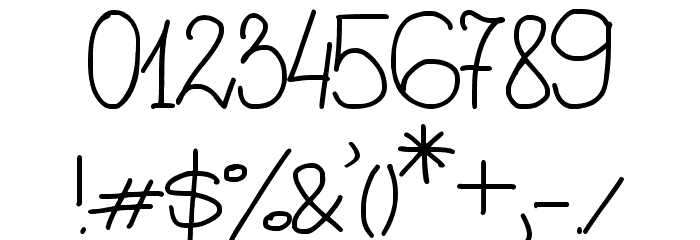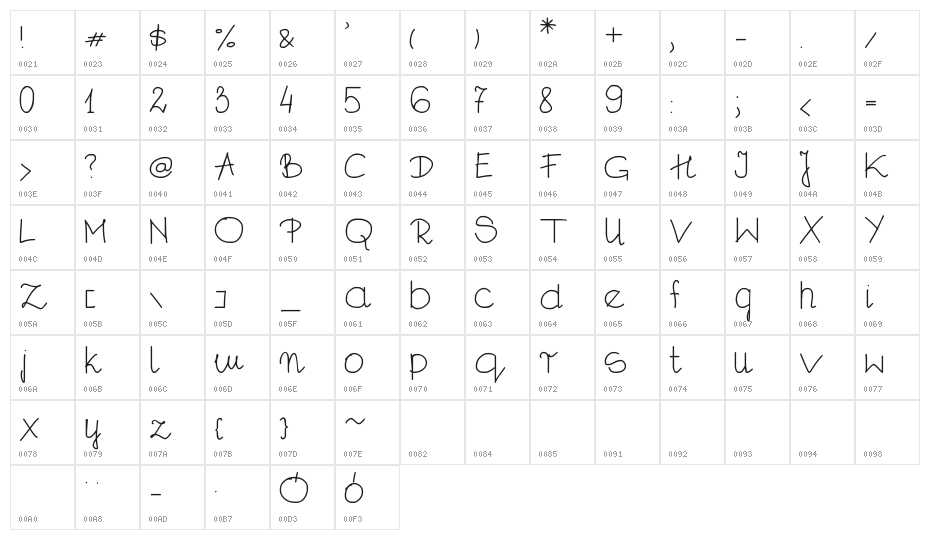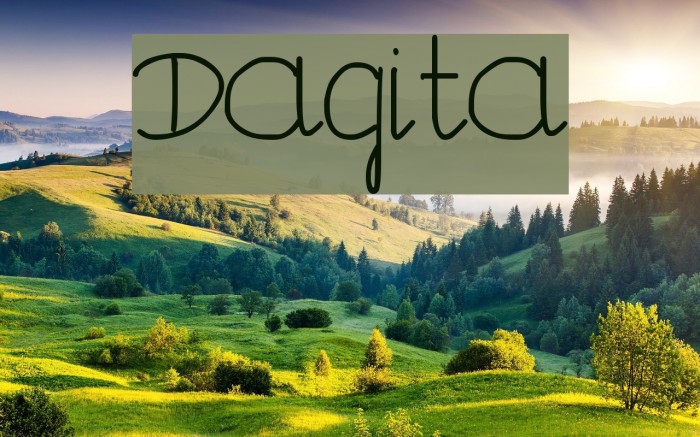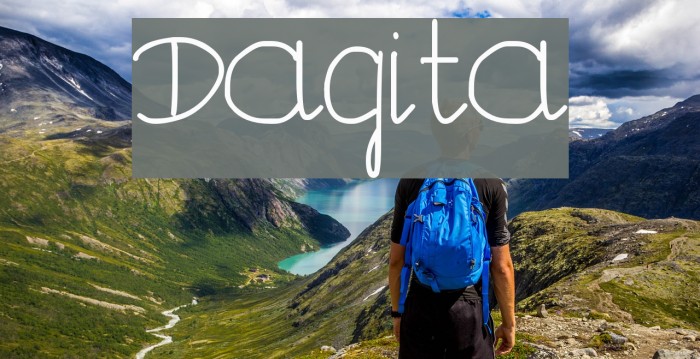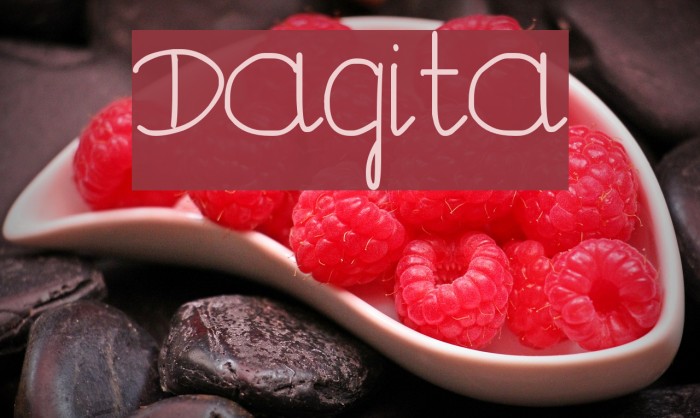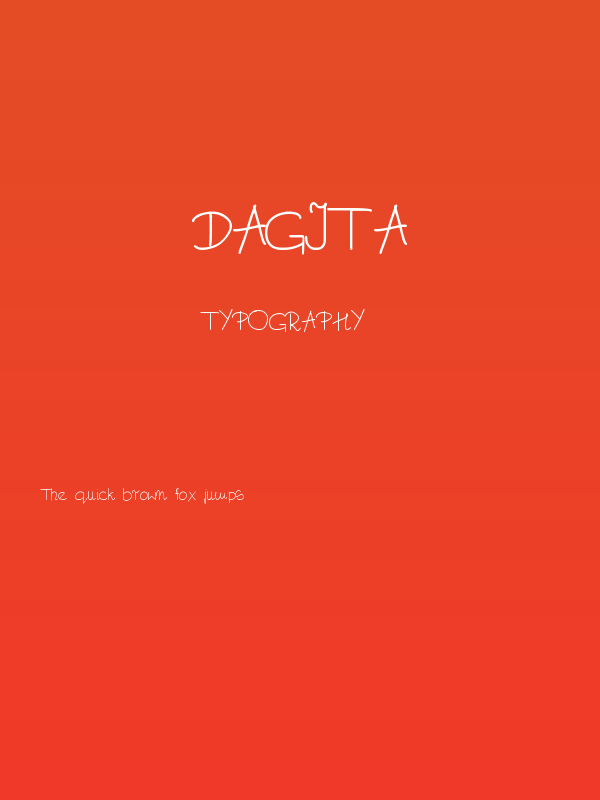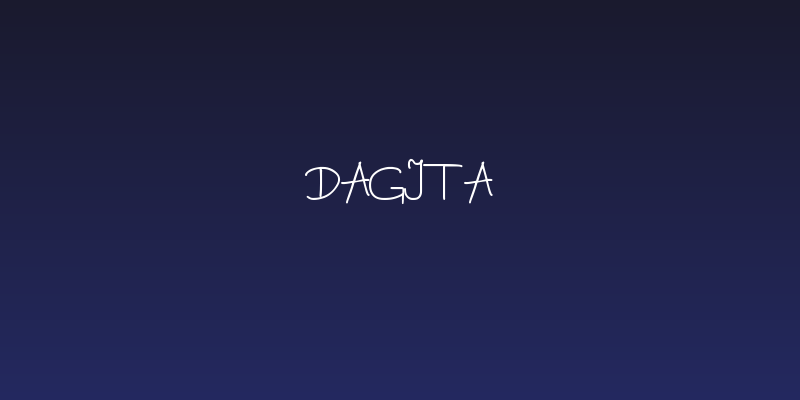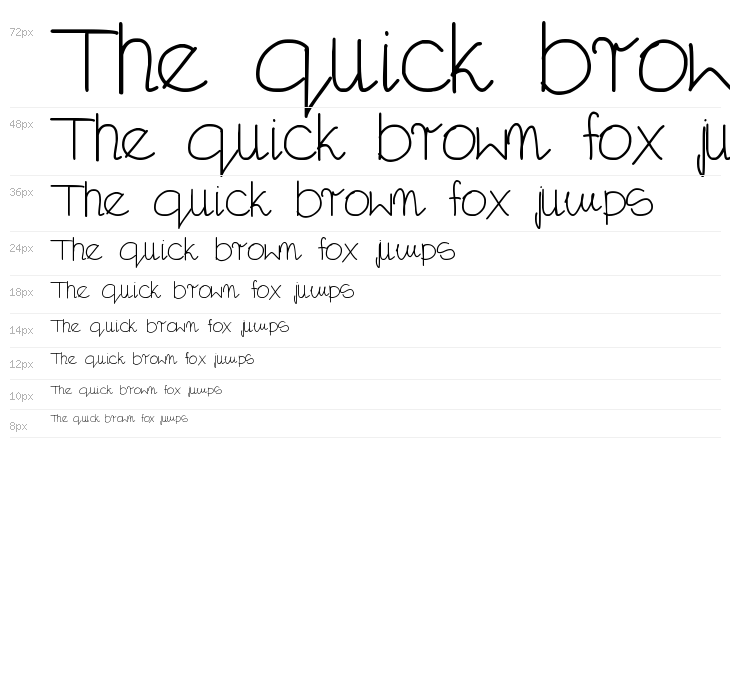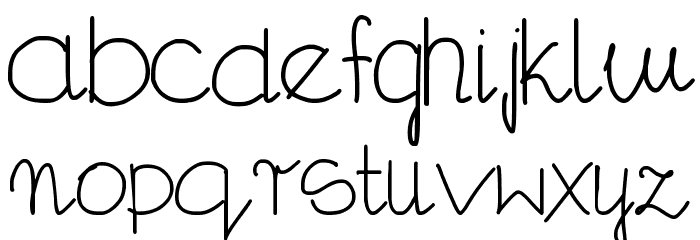
Dagita Font
Dagita Description
This font features a playful and whimsical handwritten style, characterized by its smooth, flowing lines and rounded edges. The uppercase letters maintain a consistent height, while the lowercase letters exhibit a slight slant, adding to the casual and informal feel. The numerals are clear and easy to read, with a consistent stroke width that matches the letters. Special characters are creatively integrated, maintaining the overall playful aesthetic. This font is ideal for projects that require a personal touch, such as invitations, greeting cards, or children's book covers.
| Proposed Projects | Ideal for invitations, greeting cards, children's book covers, and playful branding. |